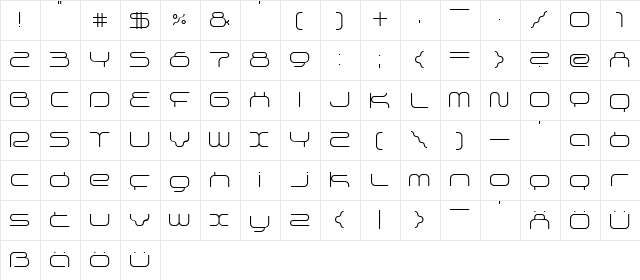
supersonic Thin Font Preview
supersonic Thin
supersonic Thin Font Details
Design Context for supersonic Typeface
supersonic takes a measured approach to typography — its balanced proportions and neutral character make it a reliable workhorse for both digital and print work. Its slender proportions lend an understated elegance to any composition.